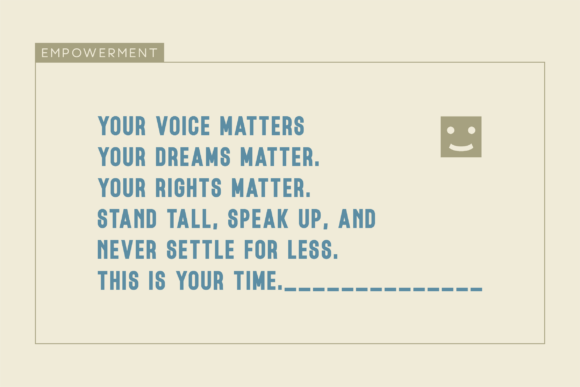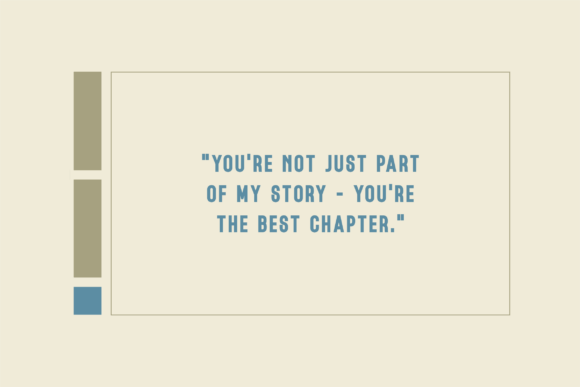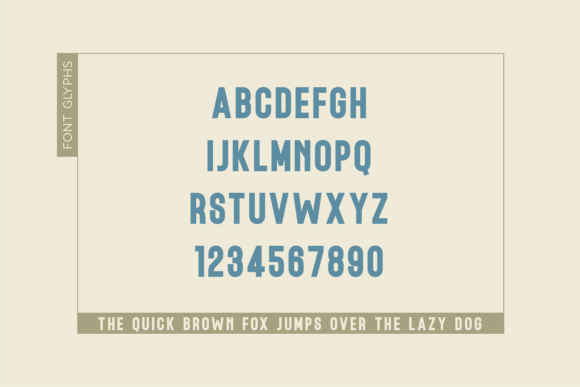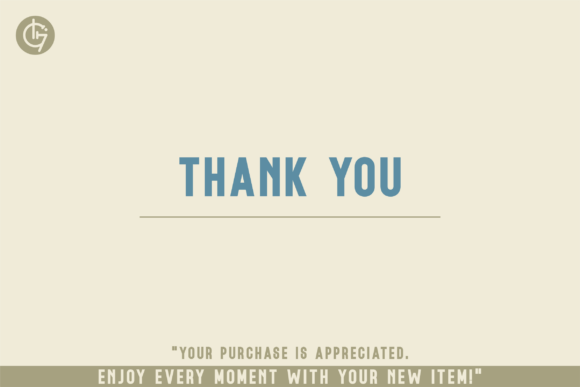
Introduction to Lonebold Font
Have you ever stared at a blank canvas, waiting for the perfect font to spark your creative project? That’s exactly what happened to me when I discovered the Lonebold Font. Its bold, all-caps sans serif design immediately caught my attention, and I knew I had to learn more about this design resource. As a designer, I’m always on the lookout for high-quality fonts that can elevate my work and make it stand out.
Lonebold Font is more than just a stylish addition to your design – it’s a statement piece that exudes professionalism and authority. With its clean lines and minimalist aesthetic, this typeface is perfect for projects that require a sense of impact and clarity. Whether you’re designing a logo, website, or print material, Lonebold Font is sure to make a lasting impression.
What sets Lonebold Font apart from other fonts is its versatility. It’s ideal for both large-scale headlines and smaller text blocks, making it a valuable asset for designers who need a reliable and professional font. And the best part? It’s available for free download, allowing you to bring this high-quality design resource into your creative project with ease.
Key Features of Lonebold Font
- High-quality font with a transparent background, making it ideal for creative projects that require a clean and modern design.
- Designed to be highly legible, with a clear and concise letterform that works well in both print and digital applications.
- Features a unique, bold aesthetic that is perfect for making a statement in design and creative projects.
- Perfect for designers, artists, and creatives working on a wide range of projects, from logos and branding to signage and wayfinding.
Honest Review: Lonebold Font
I recently came across the Lonebold Font, and I must say it’s been a game-changer for my design projects. As a designer, I’m always on the lookout for high-quality fonts that can elevate my creative work. The Lonebold Font is a free download, which is a major plus in my book.
Here are some things that I think work particularly well with this font:
- ✨ Unique aesthetic: The Lonebold Font has a distinctive look that sets it apart from other fonts. Its bold, modern design makes it perfect for a wide range of creative projects.
- ✨ Transparency: The font offers a transparent background option, which is a huge plus for designers who want to achieve a seamless look.
- ⚠️ Limited character set: While the font is free to download, the character set is somewhat limited. This might be a problem for designers who need to work with a large number of languages or special characters.
Overall, I’m really impressed with the Lonebold Font. Its unique design and high-quality aesthetic make it a valuable addition to any designer’s toolkit. If you’re looking for a free design resource that can help take your creative project to the next level, I’d definitely recommend checking out the Lonebold Font.
The Lonebold Font is a high-quality design resource perfect for any creative project. With its modern and sleek design, it’s ideal for use in a variety of applications, including digital and print media.
Tips for Getting the Most Out of Lonebold Font
For the best results, use the Lonebold Font on a transparent background to create a sleek and modern design. You can also use it in combination with other fonts to create a unique and eye-catching look.
The Lonebold Font is ideal for use in a variety of applications, including:
- Website design and development
- Print media and advertising